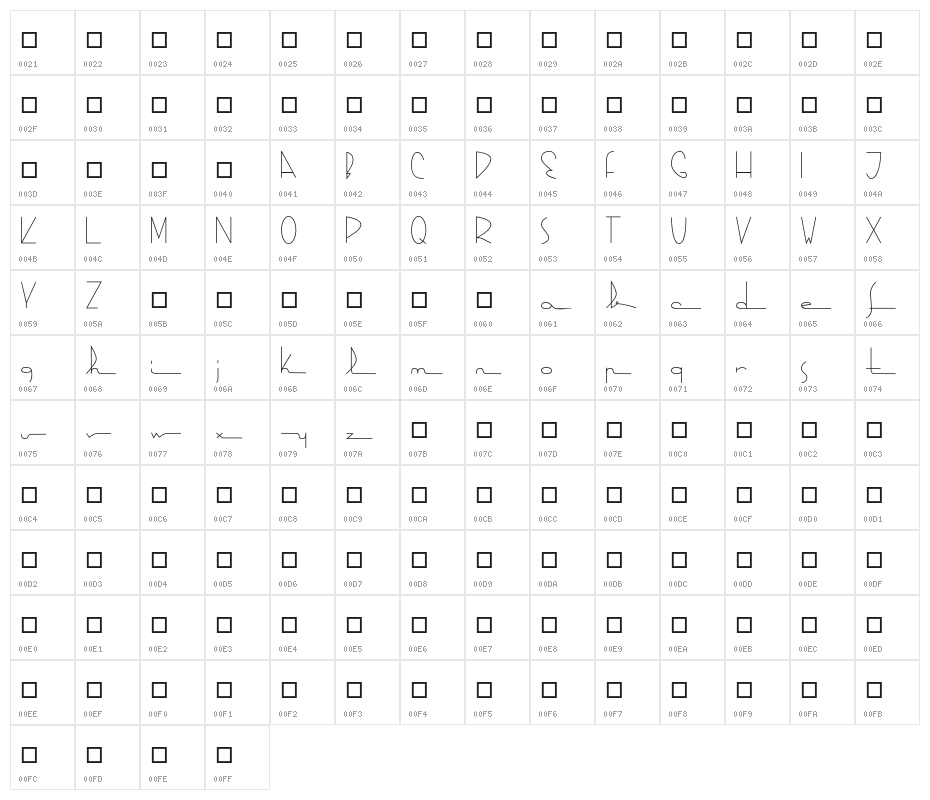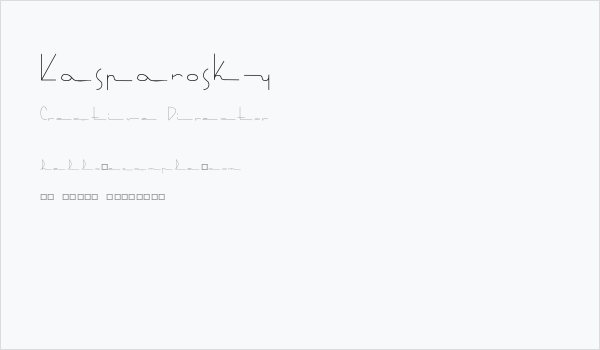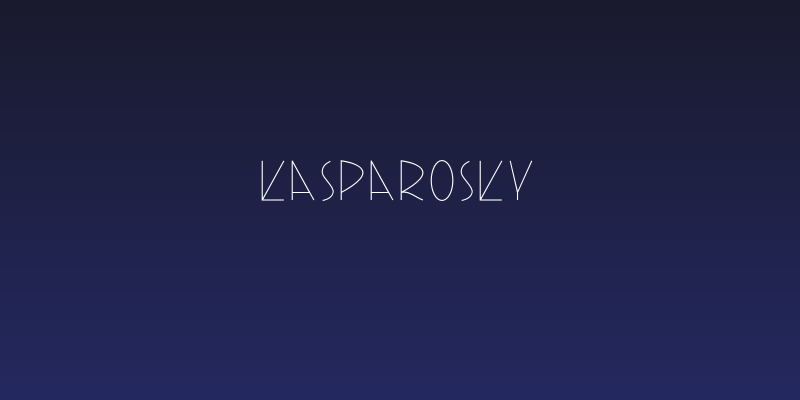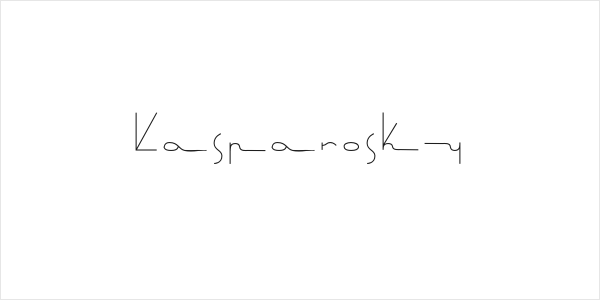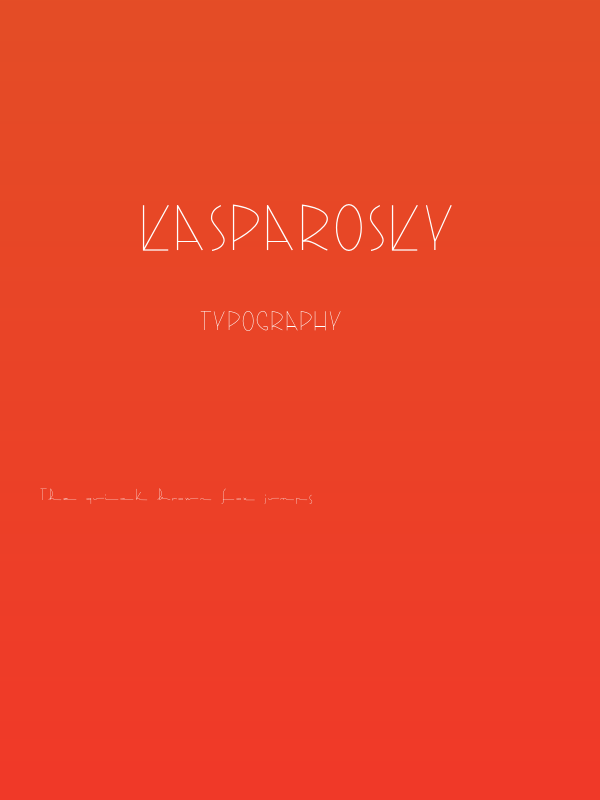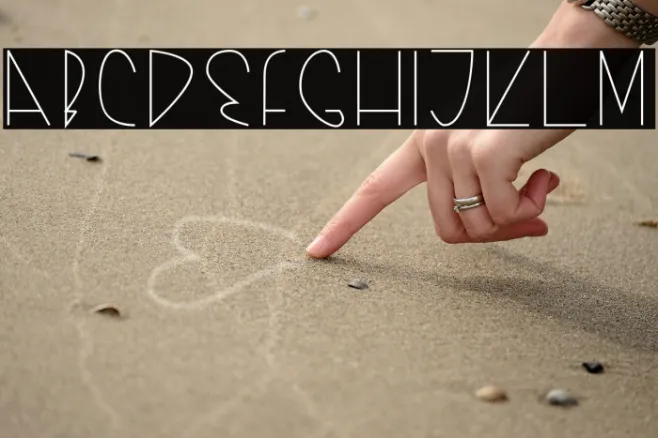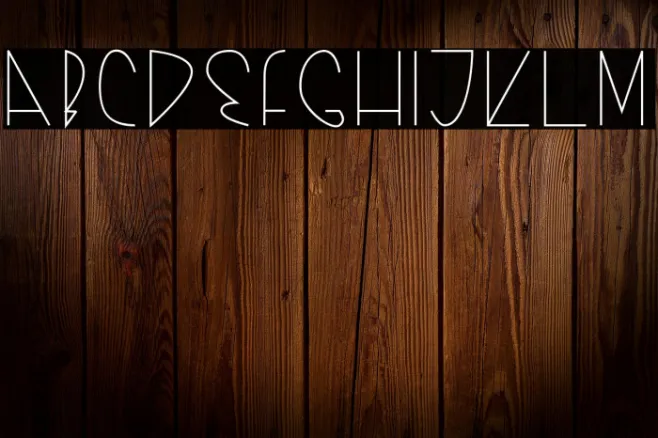
Kasparosky Font
Kasparosky Description
This font features a unique and modern design with a geometric and minimalist approach. The uppercase letters are characterized by sharp angles and straight lines, giving them a futuristic and edgy appearance. The lowercase letters maintain a similar geometric style but with a more fluid and connected form, adding a touch of elegance and continuity. The numerals and special characters follow the same design principles, ensuring consistency across all characters. The overall look is clean and sophisticated, making it suitable for contemporary design projects.
| Use Case | Logos, Headlines, Branding |
| Proposed Projects | Ideal for branding, logos, and modern editorial design projects where a sleek and contemporary look is desired. |